A literary journey with Molto
Molto has been exceptionally used in the book Barcelona: títol provisional (Barcelona: working title), a literary journey through the streets of Barcelona.
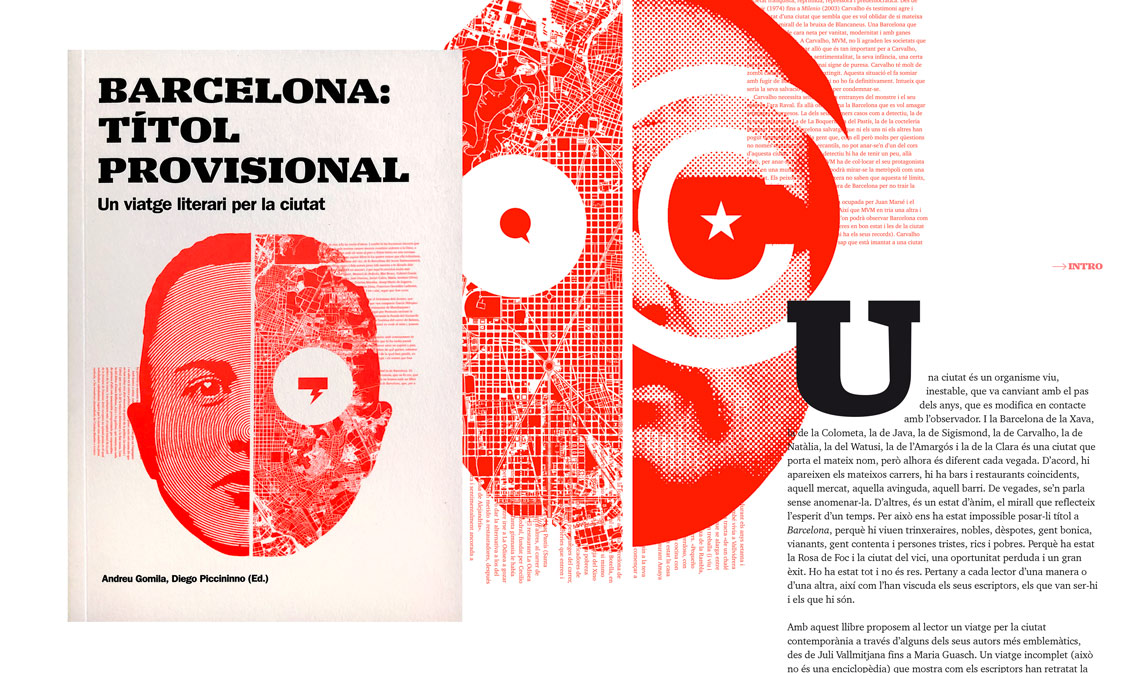
The book, Barcelona: títol provisional: un viatge literari per la ciutat (Barcelona, provisional title: a literary journey in the city) edited by Andreu Gomila and Diego Piccininno offers the possibility of rediscovering Barcelona through the books that use the city as a main character. The book is a perfect excuse to enjoy Barcelona’s most iconic locations and neighbourhoods.
It includes a profile of eight authors who have left an imprint on the city: Mercè Rodoreda, Jaume Cabré, Manuel Vázquez Montalbán, Roberto Bolaño, Juan Marsé, Quim Monzó, Montserrat Roig, and Maria Mercè Marçal. Argentinian art director Diego Piccininno was also in charge of book design, and for that he has chosen Xavier Dupré’s type family Molto.
Molto’s strong presence is a perfect balance against illustrations, maps, and textual explorations. It is used in headlines, as individual characters, and for text. Like Barcelona, Molto’s charisma and power insists on being seen, on being a main player — maybe the player — within your view.